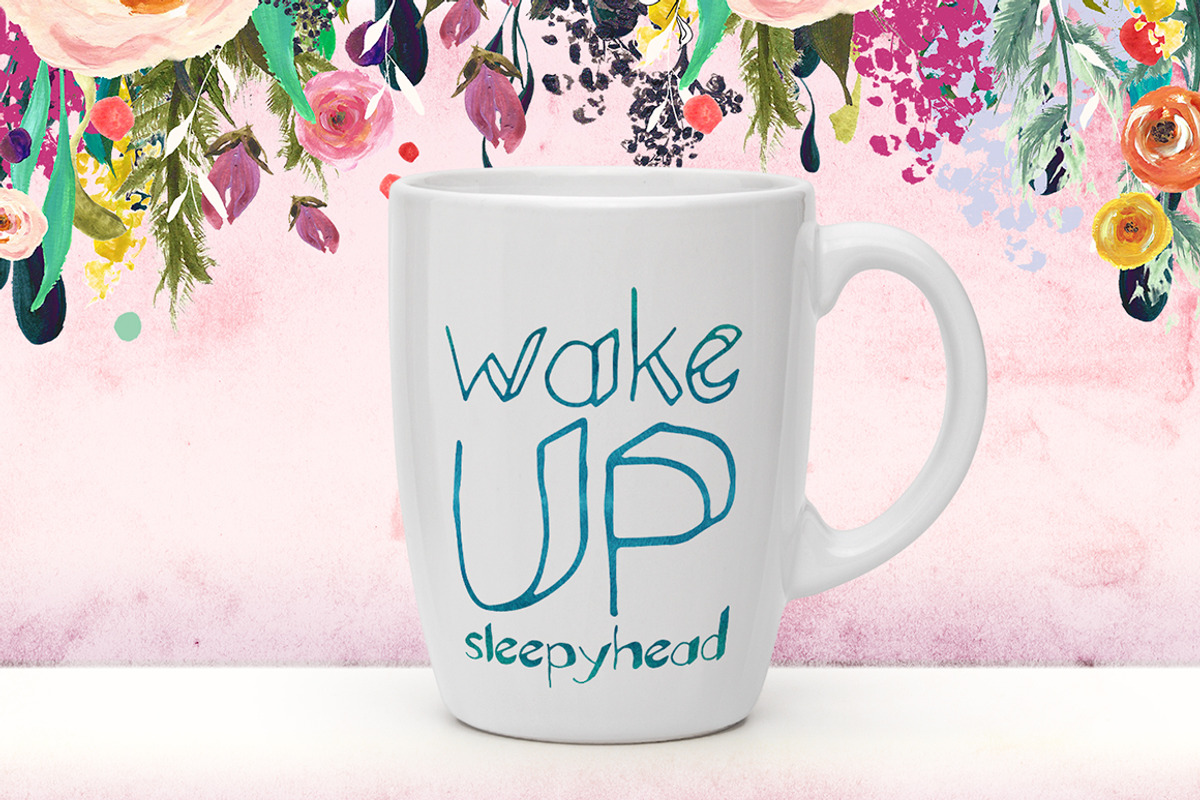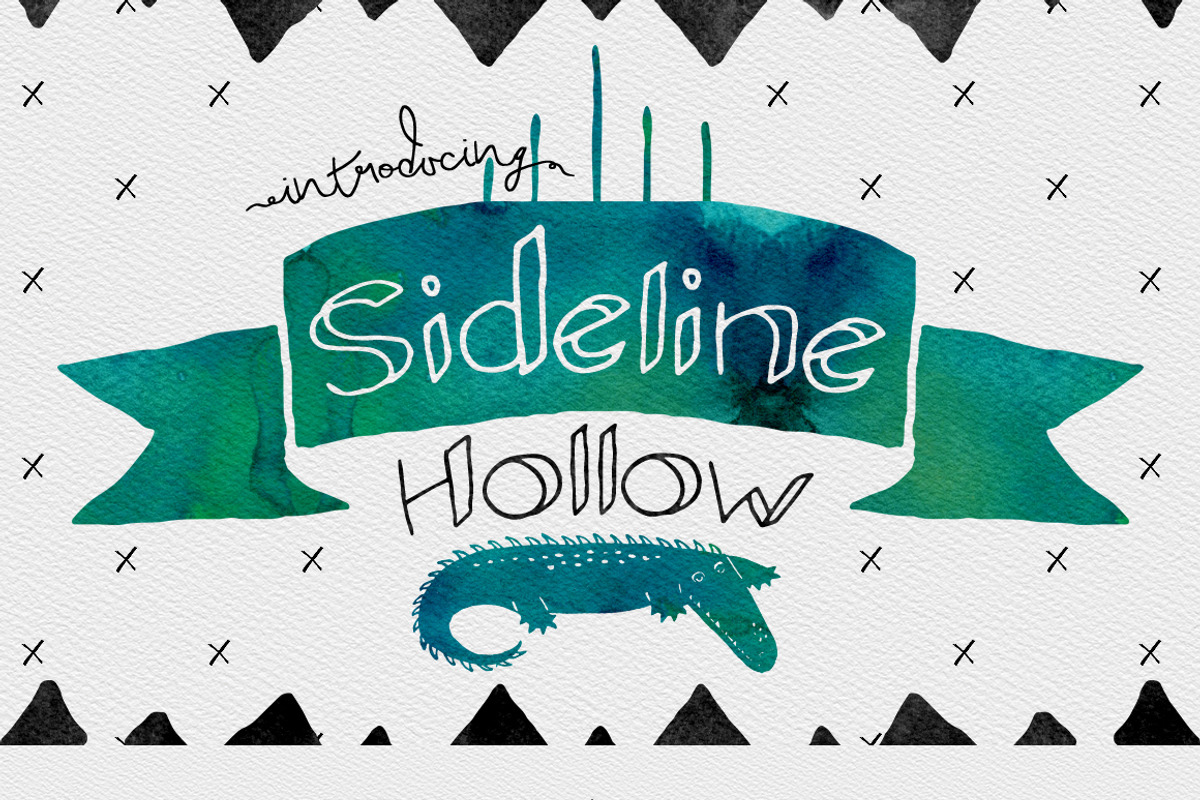
Sideline Typeface - Hollow
Sideline Typeface - Hollow by Creativeqube Design is a font selected for branding, posters, packaging, typography.
- Sideline Hollow - a Hand drawn display font - the outline version of Sideline Bold Sideline comes with Uppercase, Lowercase, numbers and sym
Sideline Typeface - Hollow by Creativeqube Design fits naturally into Branding, posters, packaging, typography.